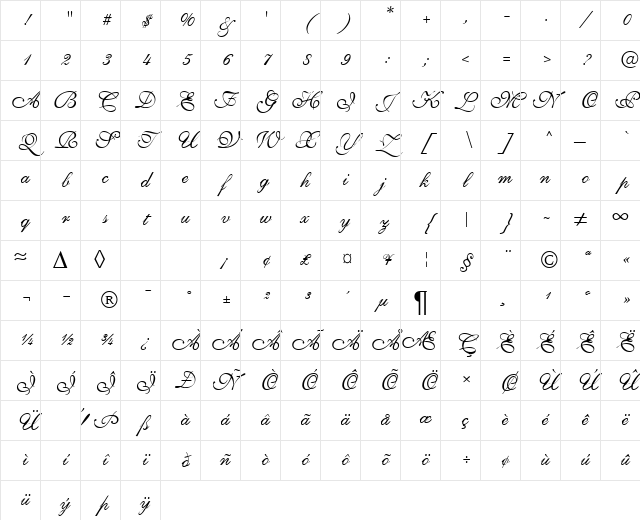
Complete ShirleyVolante DB Regular glyph index. Displaying only characters natively supported by ShirleyVolante DB Regular font.
ShirleyVolante DB is a composed and adaptable typeface that performs quietly and consistently across a wide range of design contexts.